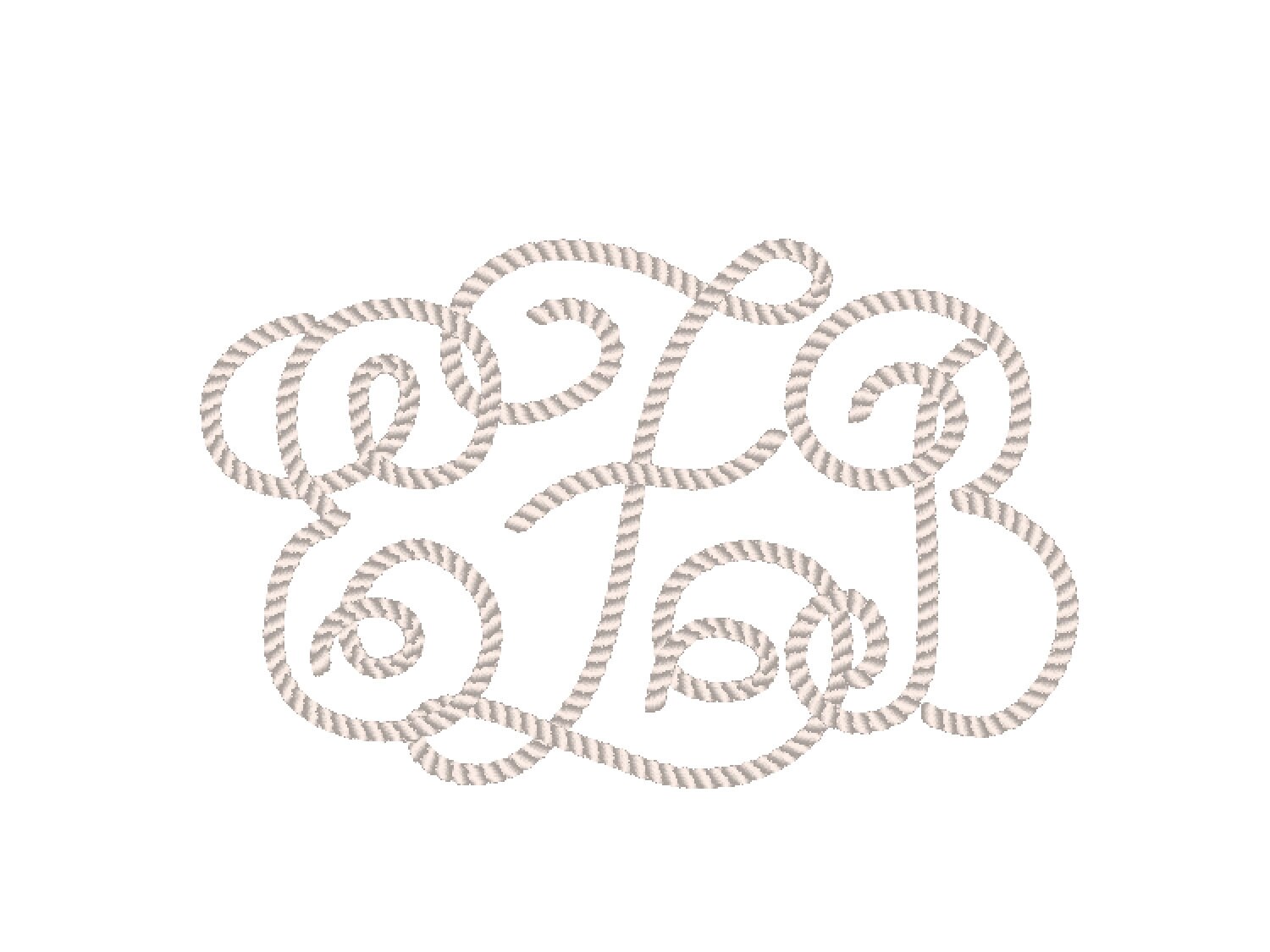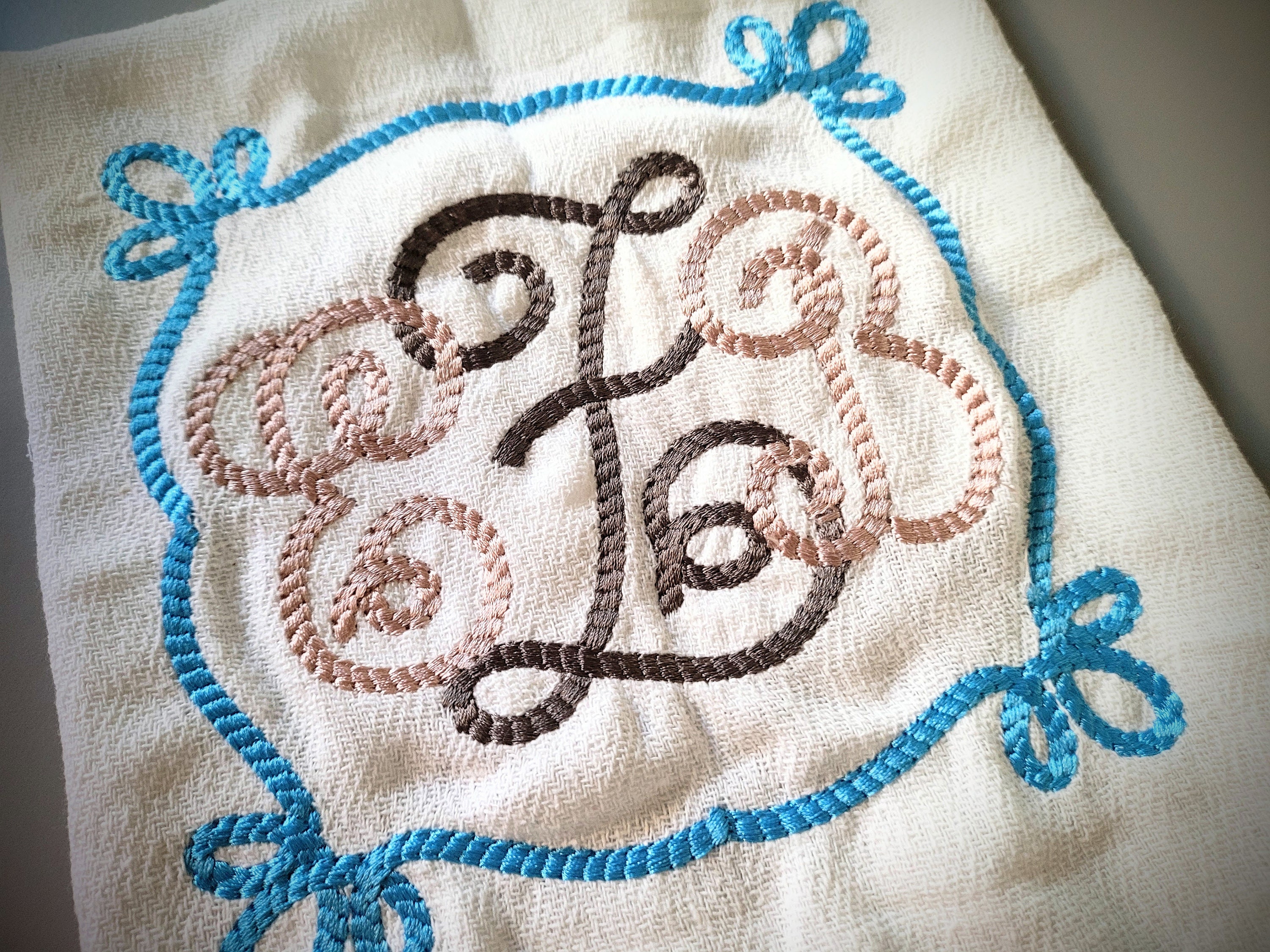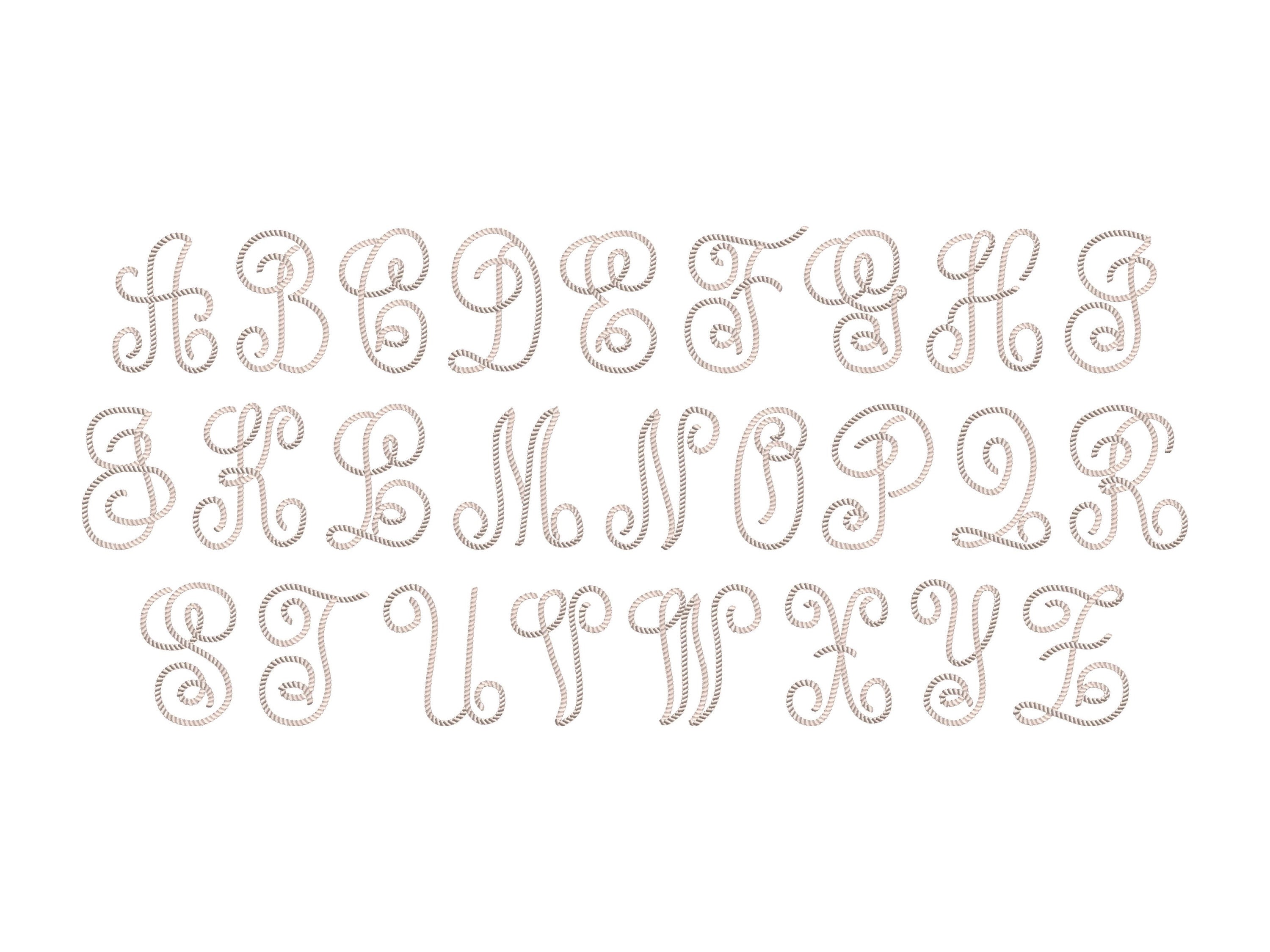
Rope satin stitch Font alphabet Monogram curl letters machine embroidery designs in sizes from 2.5 up to 7 inches marine nautical type, BX
Uppercase letters.